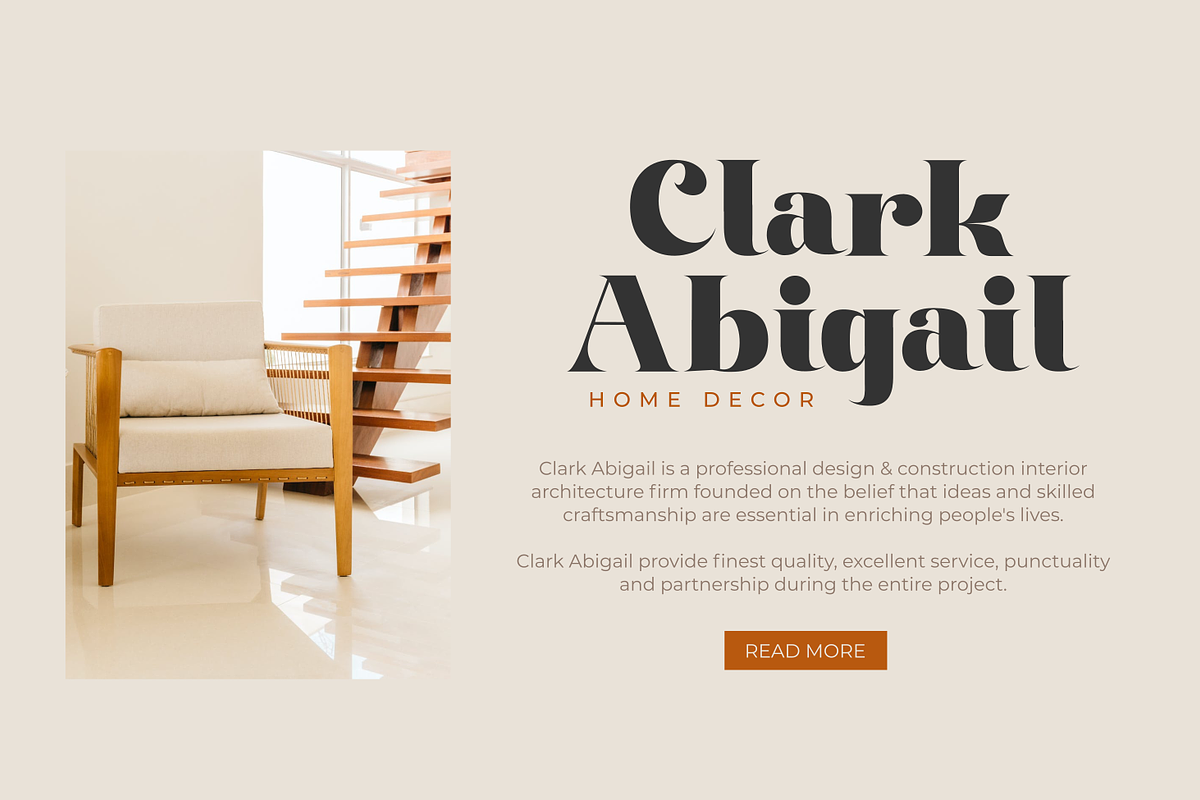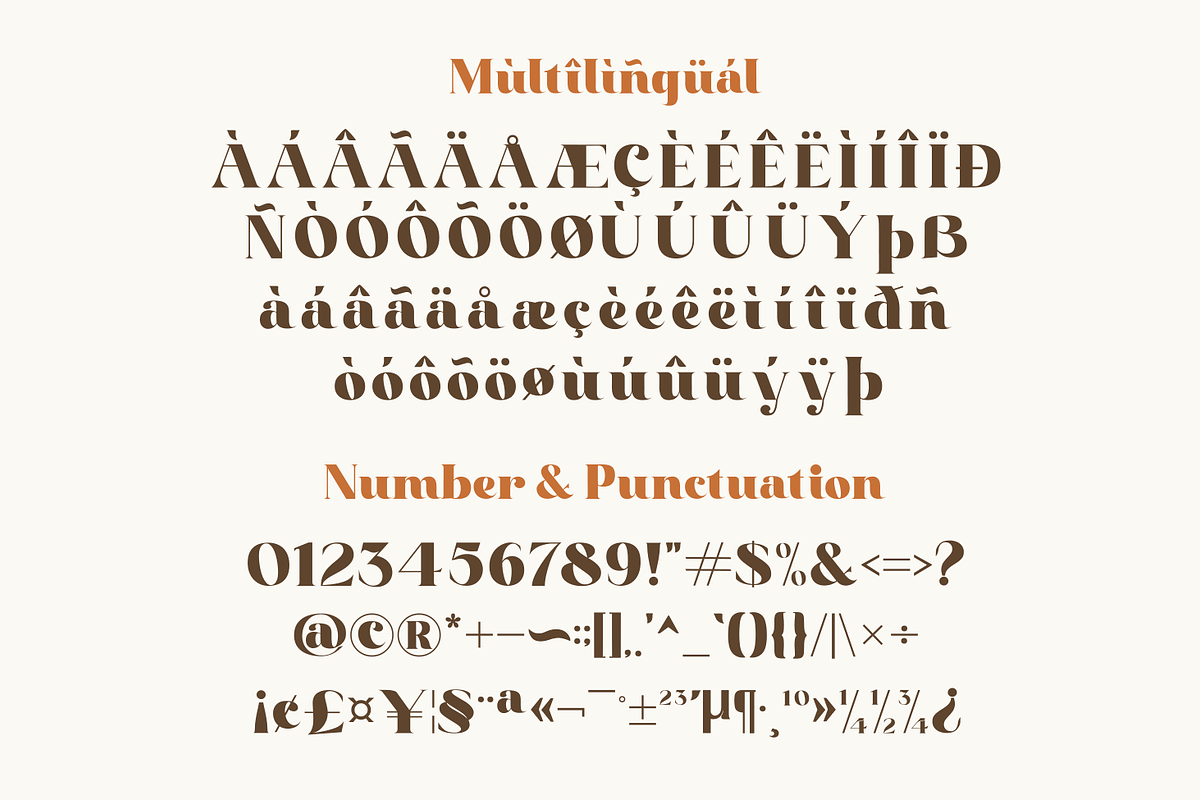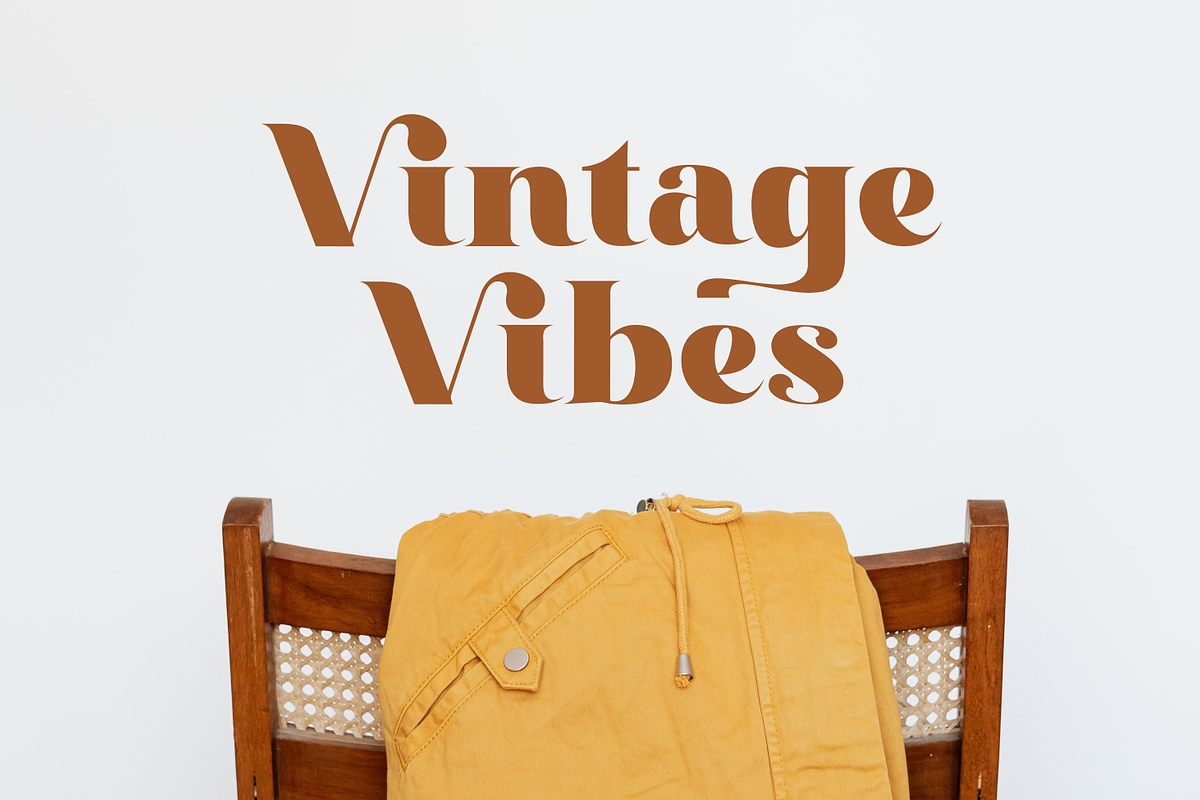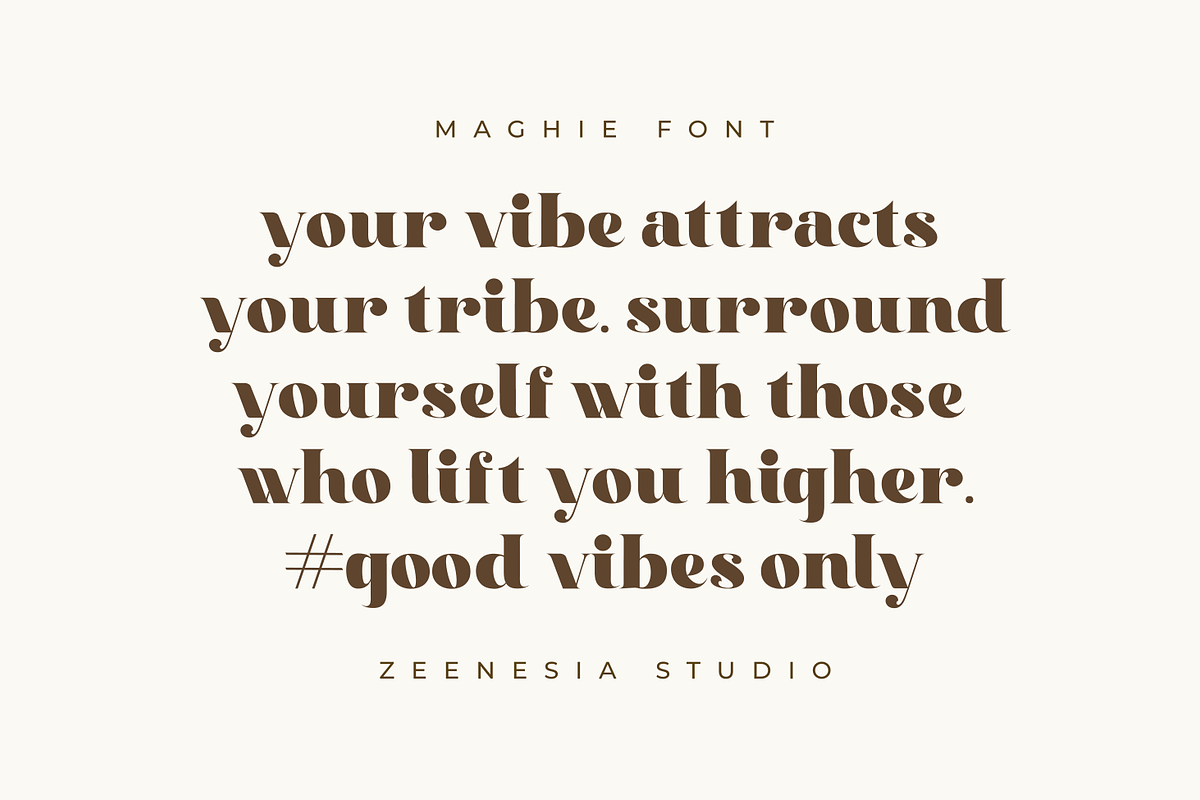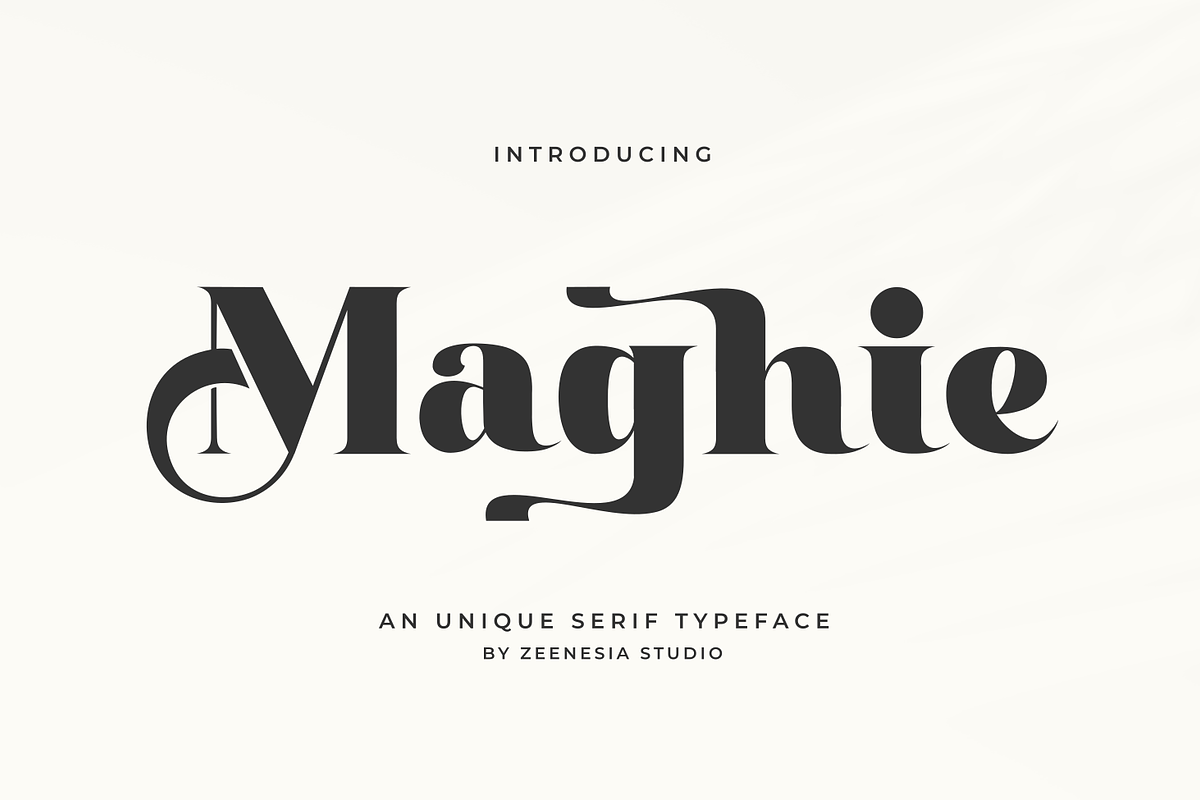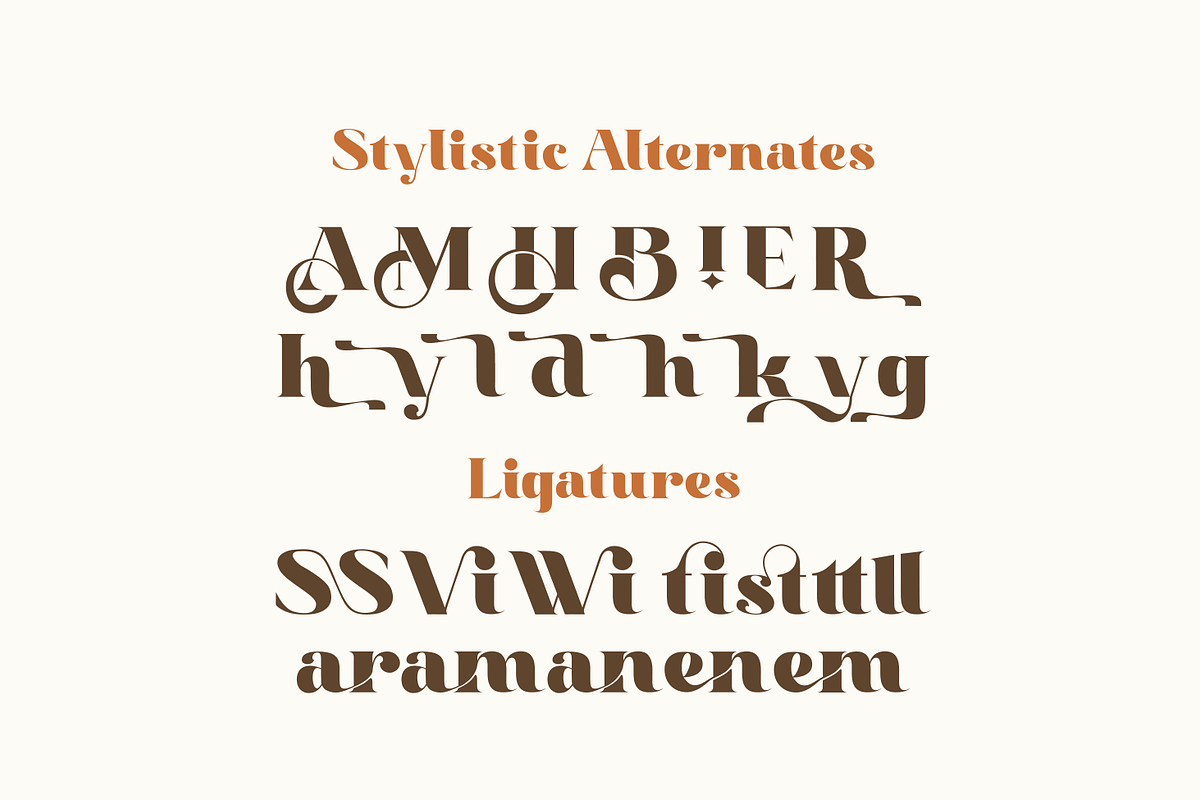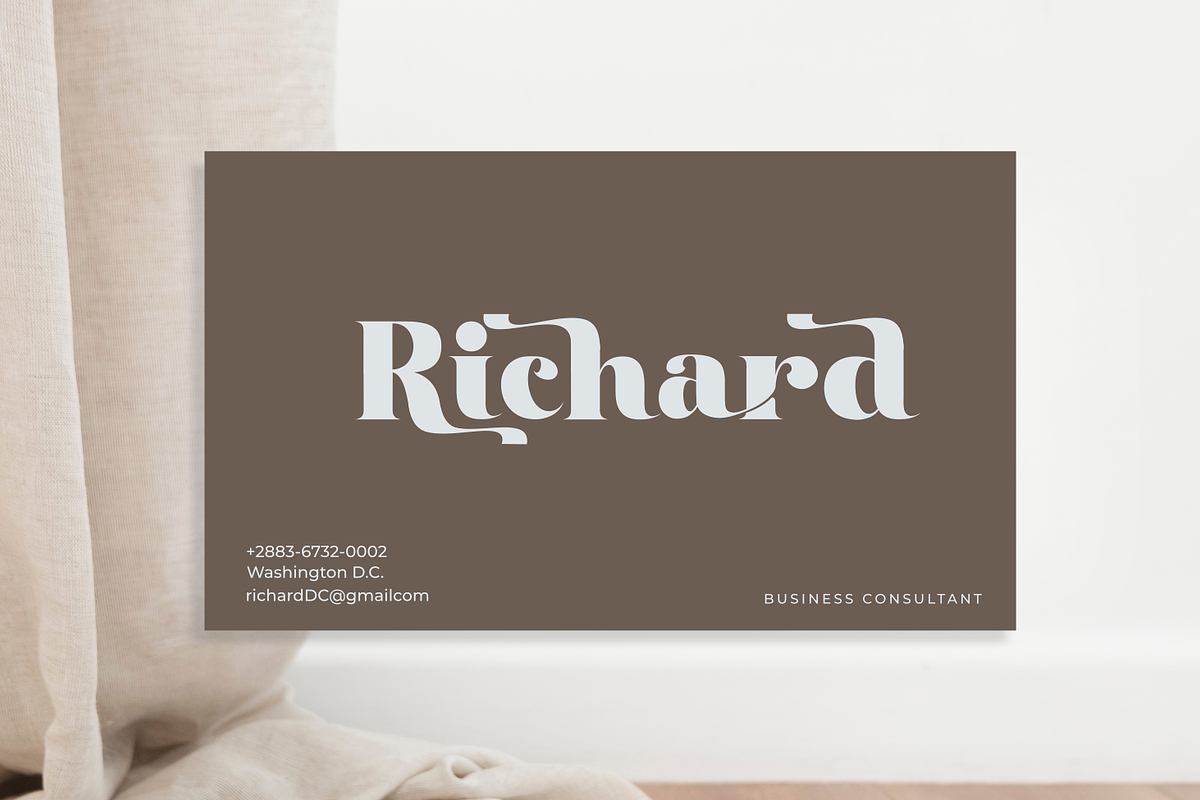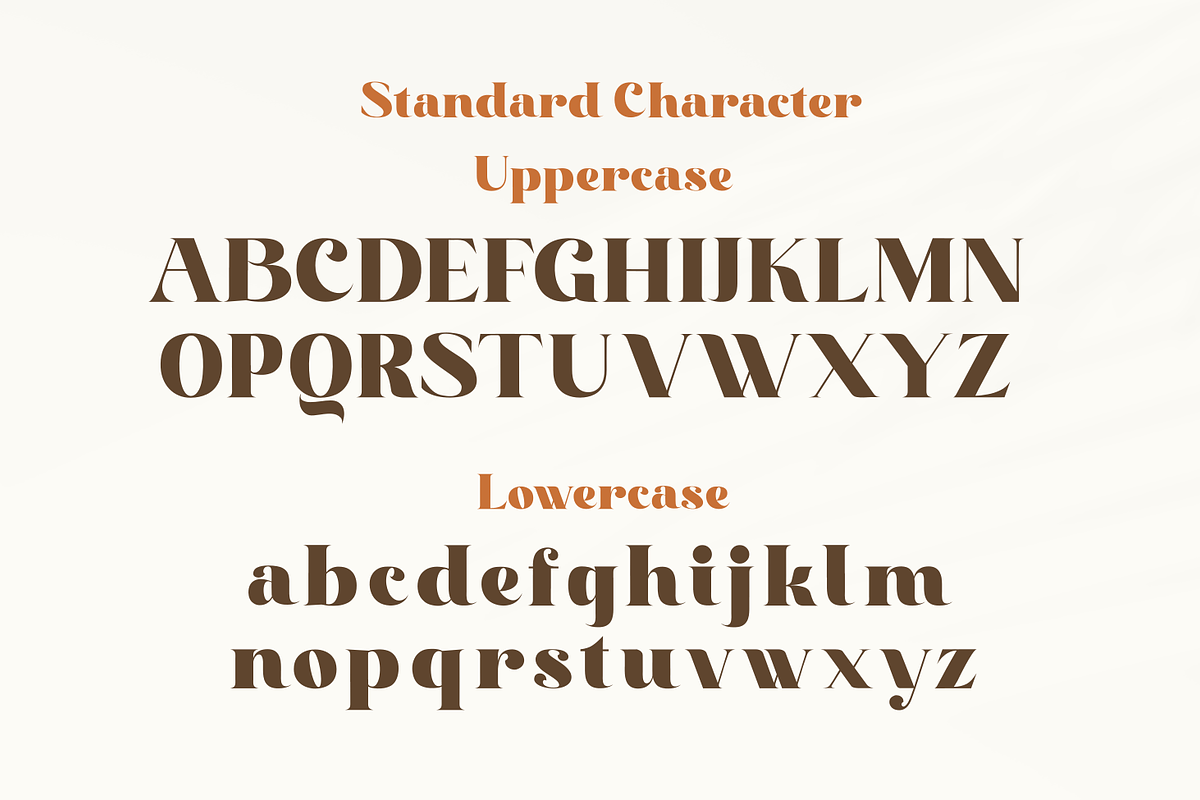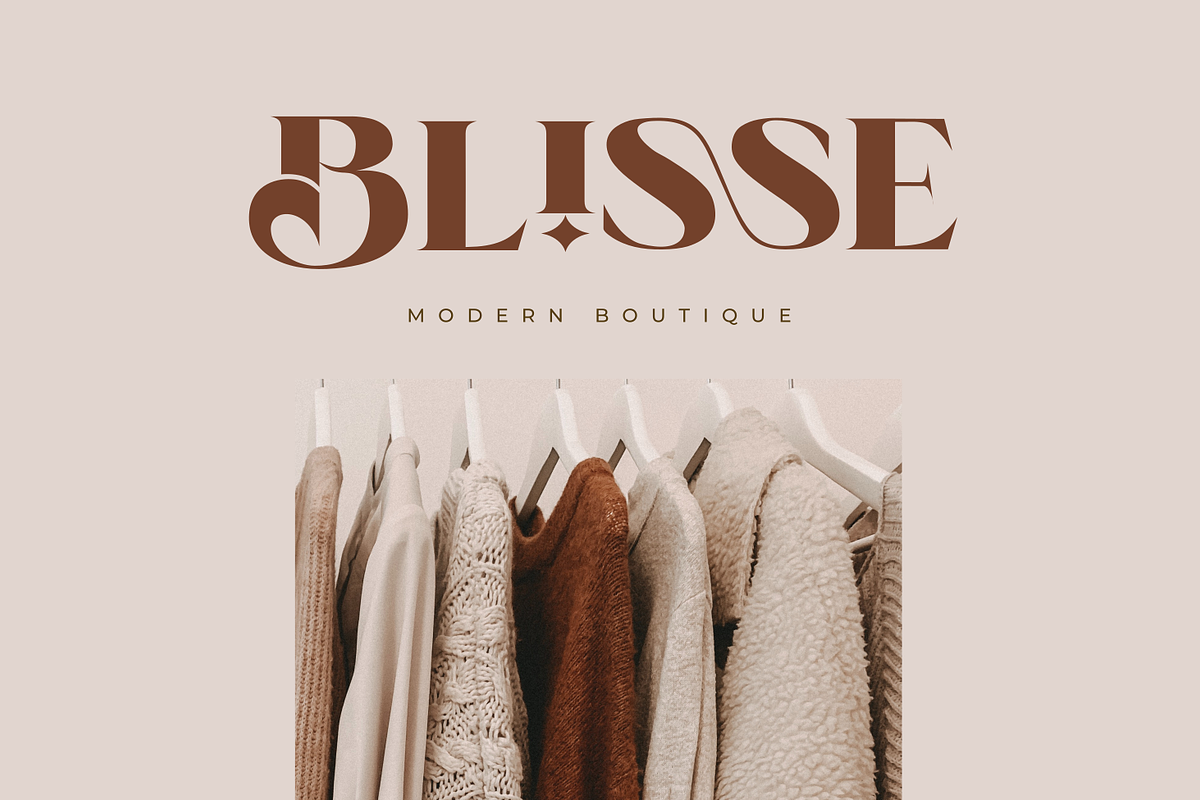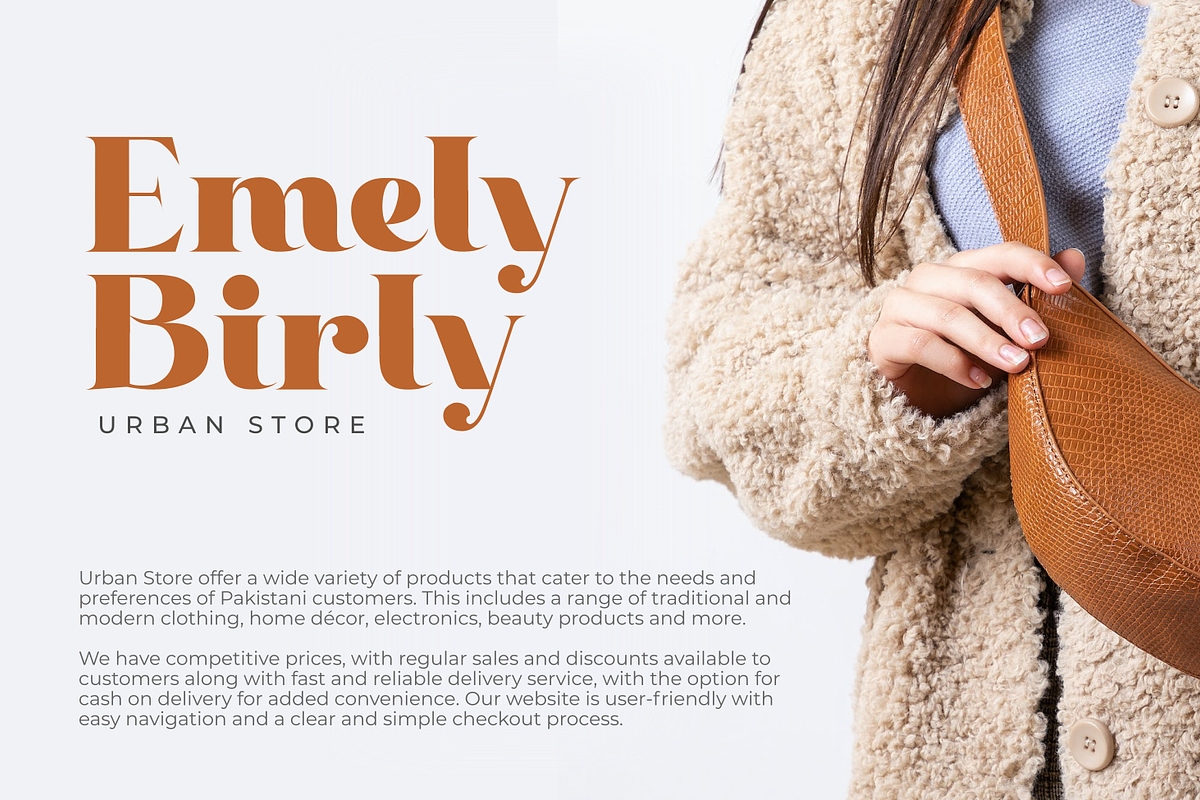
Maghie
Introducing Maghie. Maghie is a modern and unique sans serif font. Maghie is very versatile font that works great in large. well-suited for advertising, branding, logotypes, packaging, titles, headlines and editorial design. I created more much alternates variant and much natural ligatures to make this font very classy and look so beauty. Vintage Mango was built with open type features make your project will be perfect.